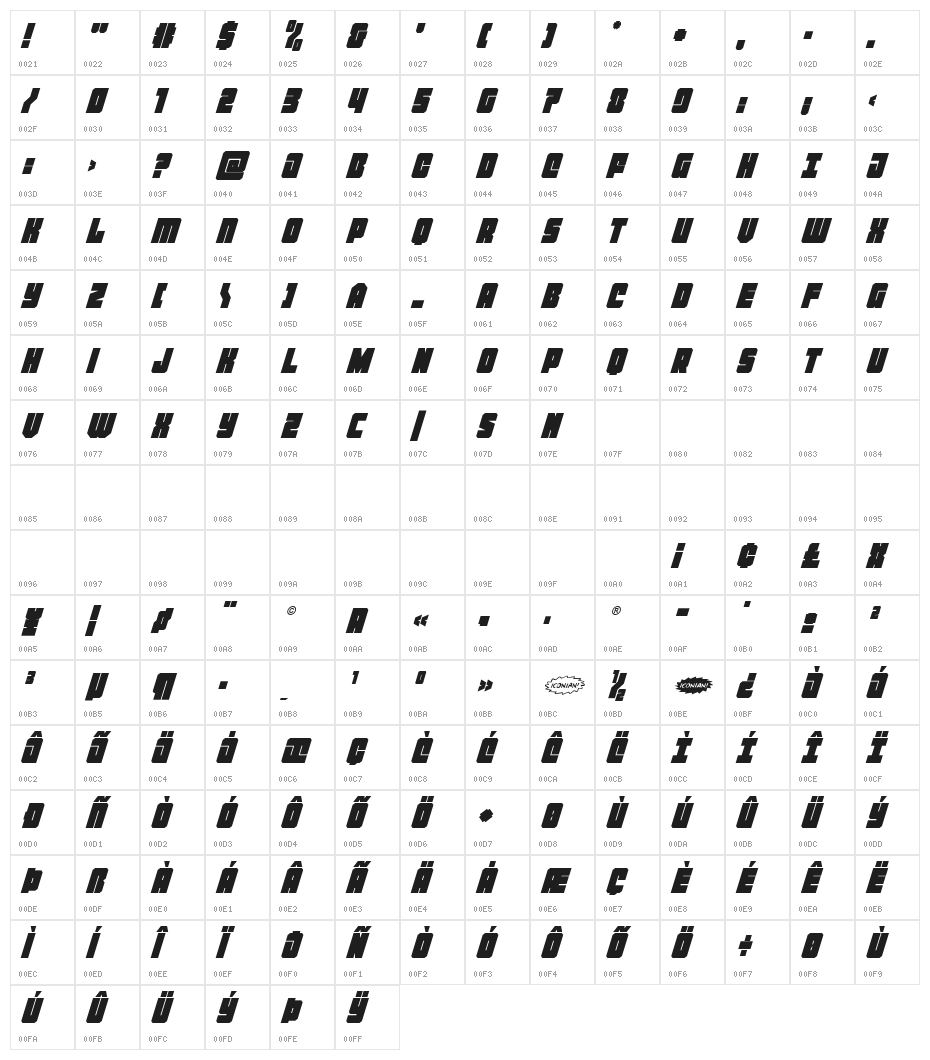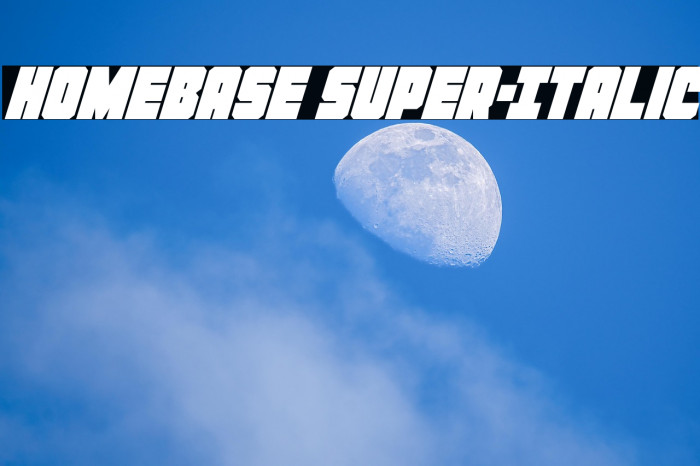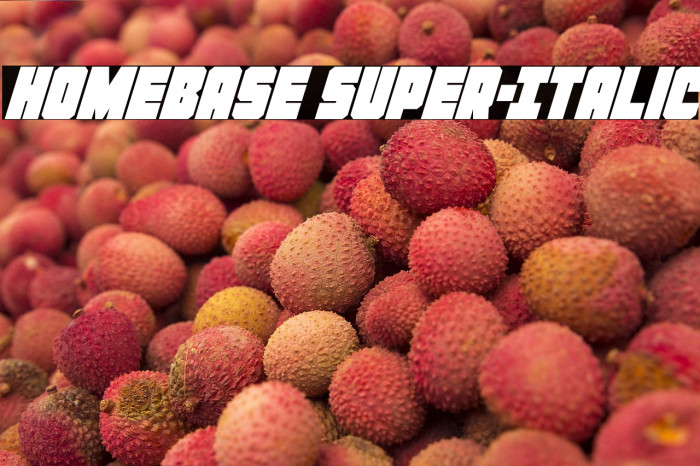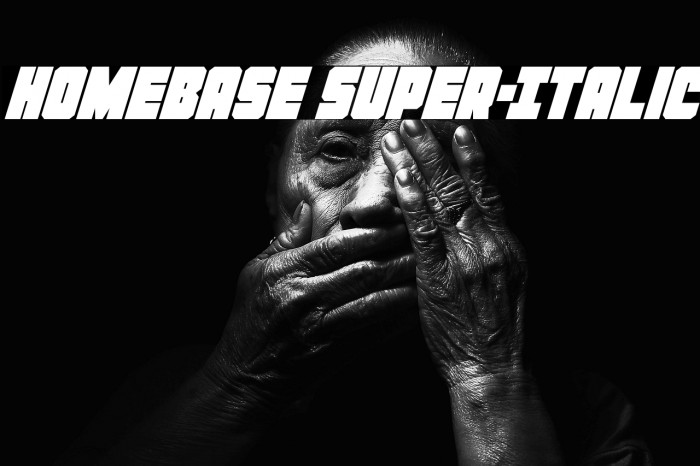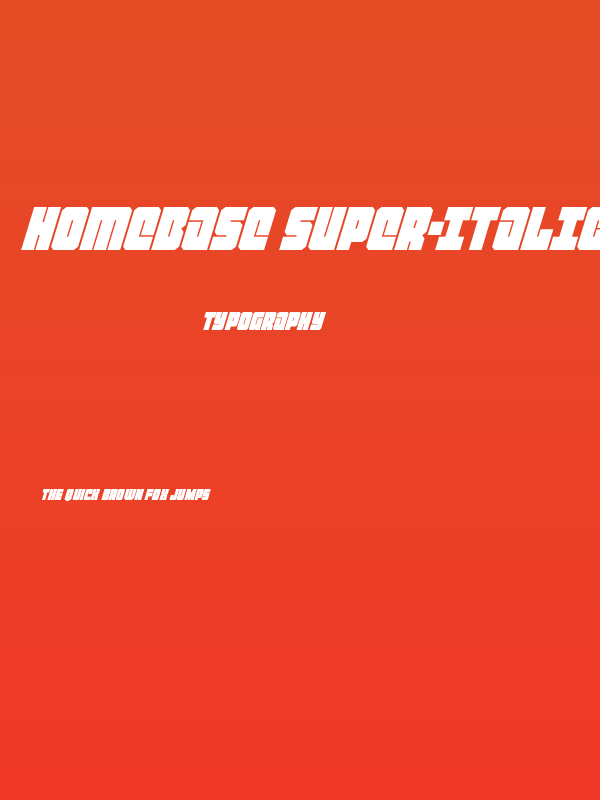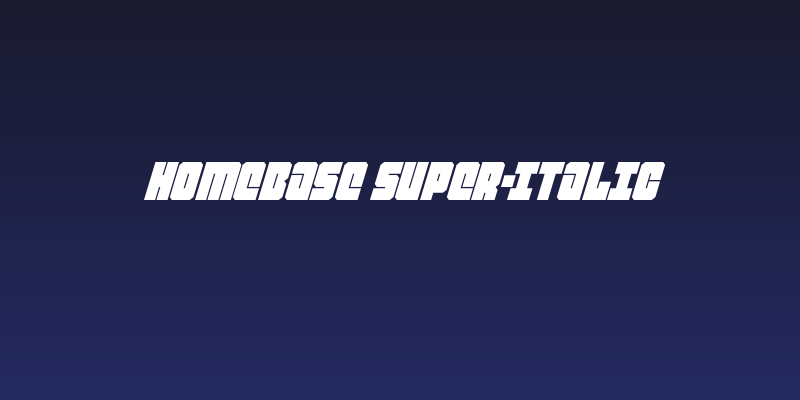
Homebase Super-Italic Font
Homebase Super-Italic Description
This font features a bold and dynamic design with a strong italic slant, giving it a sense of movement and energy. The characters are wide and blocky, with sharp angles and a futuristic appearance. The uppercase and lowercase letters maintain a consistent style, emphasizing the boldness and angularity. Numbers and special characters are equally robust, ensuring a cohesive look across all text elements. The font's design is highly suitable for projects that require a modern and impactful visual statement.
Proposed ProjectsIdeal for sports branding, video game titles, dynamic posters, and modern advertising campaigns.